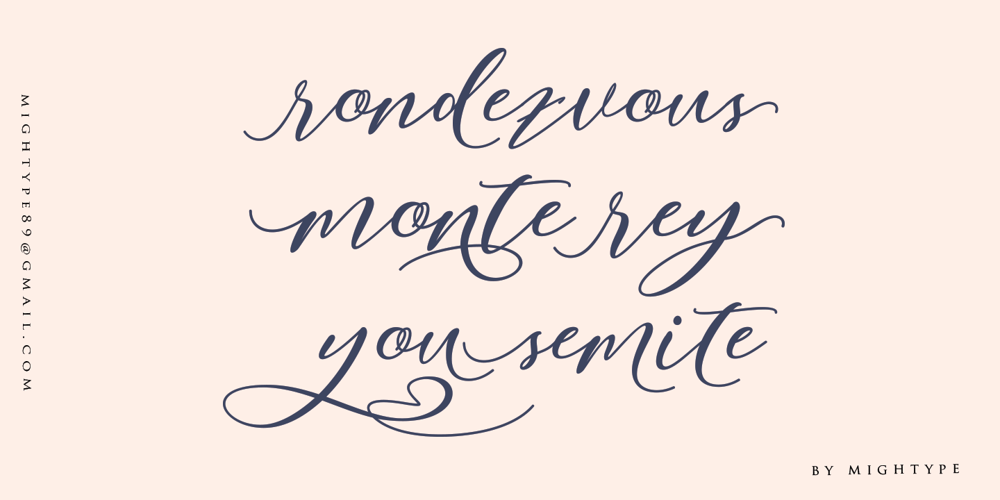
Nattyla Font Family was designed by Munawir and published by Mightype. Nattyla contains 1 styles and family package options. Nattyla Script is a modern calligraphic font in a current handwriting style. This font is perfect for branding, wedding invites, magazines, mugs, business cards, quotes, posters, and more: you can try first if you want to buy this font. Nattyla Script is equipped with 328 glyphs. By having so many glyphs you will be able to choose the letters according to your likes and needs. There are lots of variations and options for each letter, so you can customize your design choices. You need a program that supports OpenType features such as Adobe Photoshop Cs / Adobe Photoshop CC, Adobe Illustrator CS / Adobe Illustrator CC, Adobe Indesign and Corel Draw or other programs that support OpenType. If you do not have a program that supports OpenType, you can access all the alternate glyphs using Font Book (Mac) or Character Map (Windows). If you have any question, do not hesitate to contact me by email mightype89@gmail.com Thanks and happy designing, and thank you for choosing “Nattyla”!